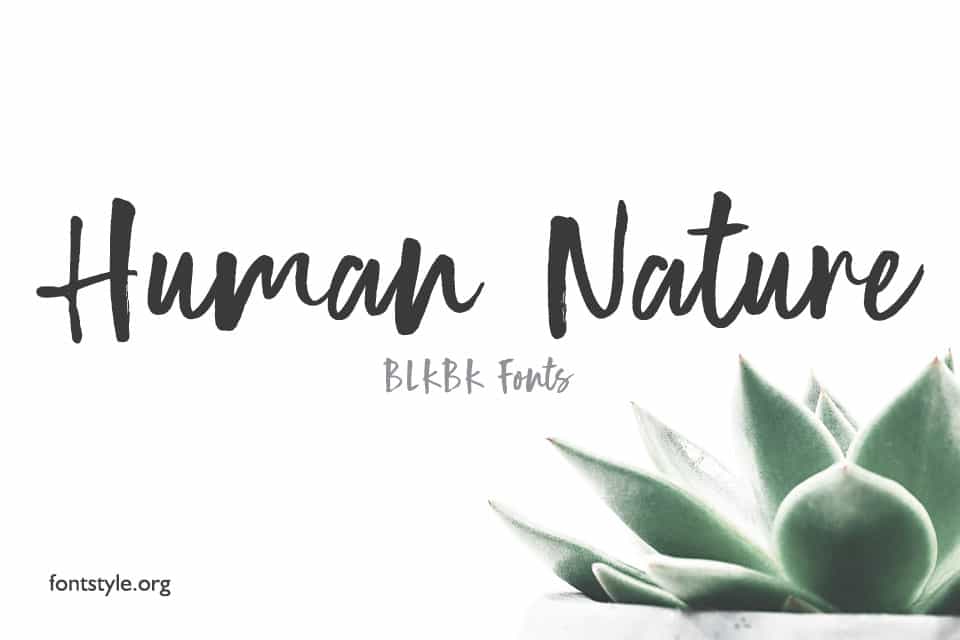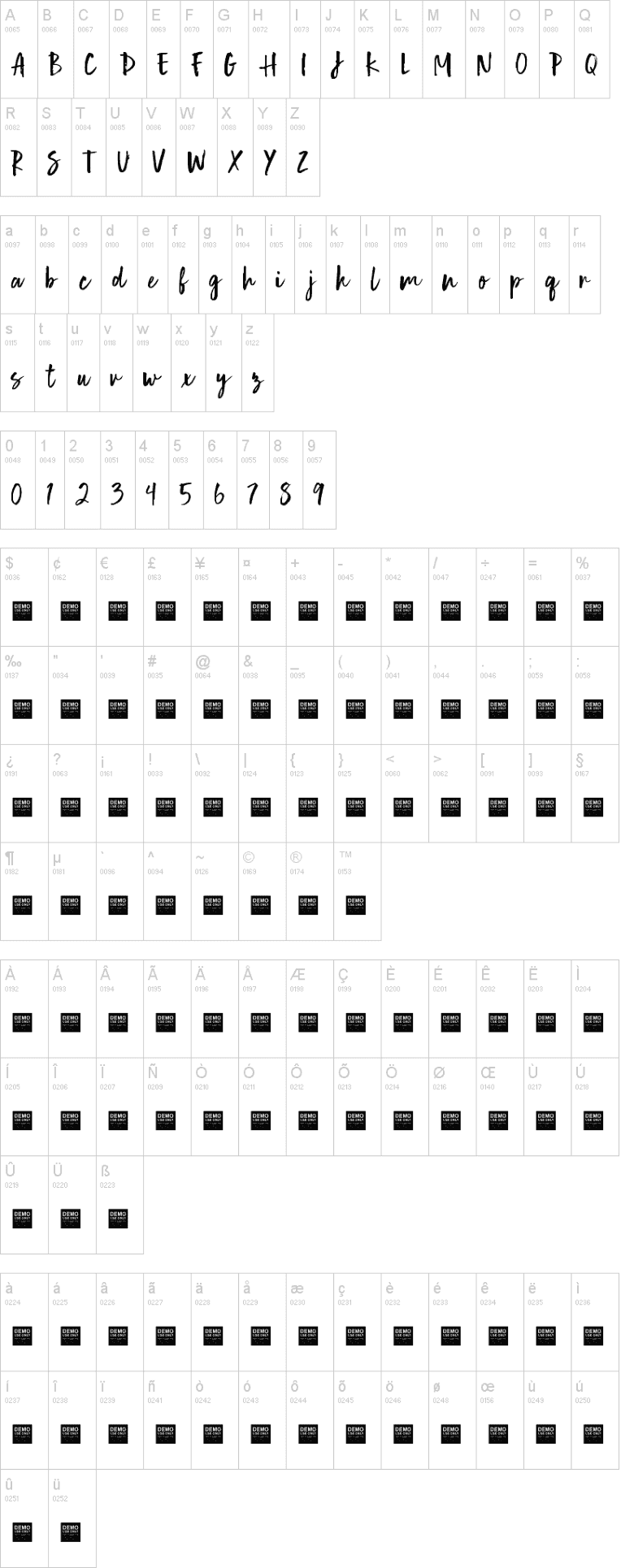
Discover Human Nature Font, part of the Brush collection—a versatile and unique font perfect for adding a personal touch to your projects. Download it for free and enjoy crafting designs with style, from invitations to social media posts. This font is available exclusively for personal use, giving you the freedom to create without limits. Unlock your creativity with Human Nature Font today!
Human Nature by BLKBK Fonts is another type font you can download from the internet for free if used commercially; it has uppercase alphabets and other characters in the preview.